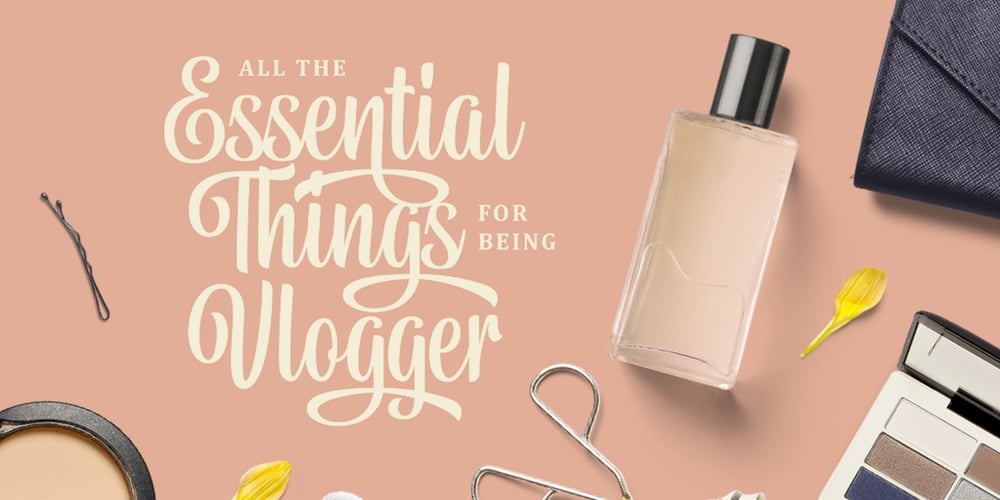
Belymon Script
Belymon Script font
Belymon Script Font Family was designed by Hendry Juanda and published by Letterhend. Belymon Script contains 1 styles and family package options. Belymon Script is a one-of-a-kind script with classic touch and very readable at glance. Really perfect for you who needs a typeface for especially logotype, apparel, invitation, branding, packaging, advertising etc. The main feature for this script is stylistic set for each characters up to 6 set! Just play around and you will enjoy it. This typeface is comes in uppercase, lowercase, punctuations, symbols & numerals, stylistic set alternate, ligatures, etc also support multilingual and already PUA encoded.